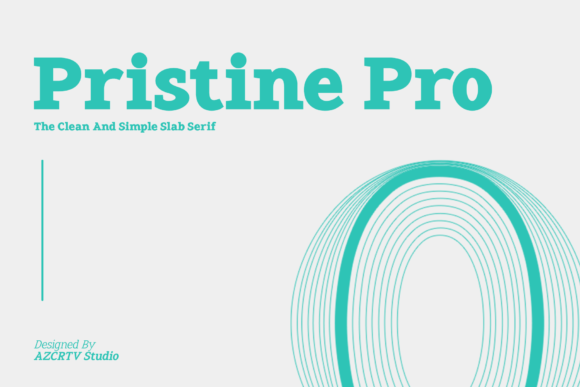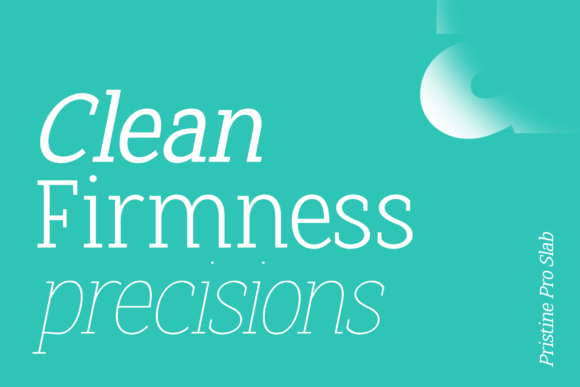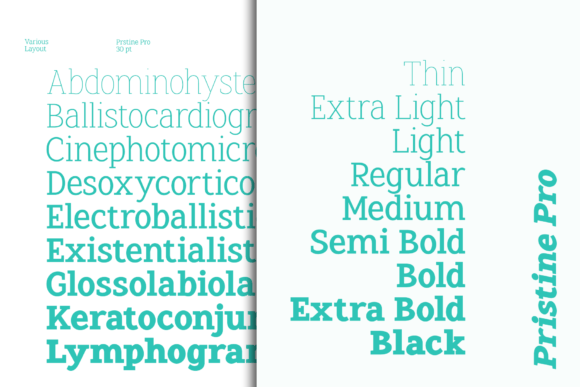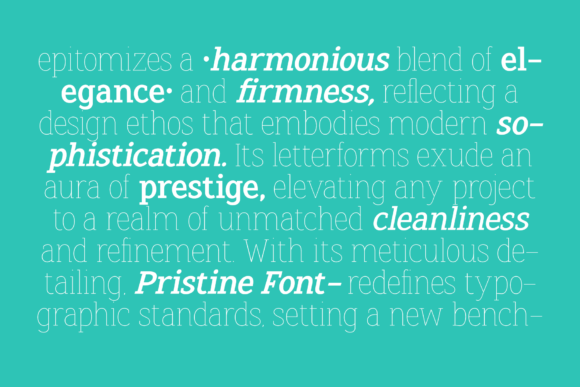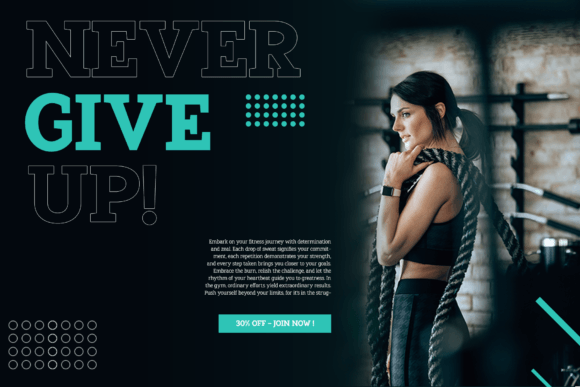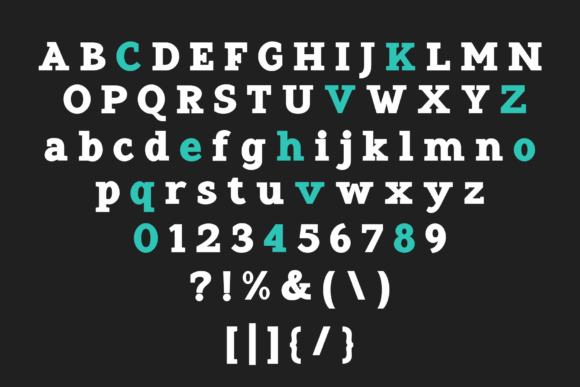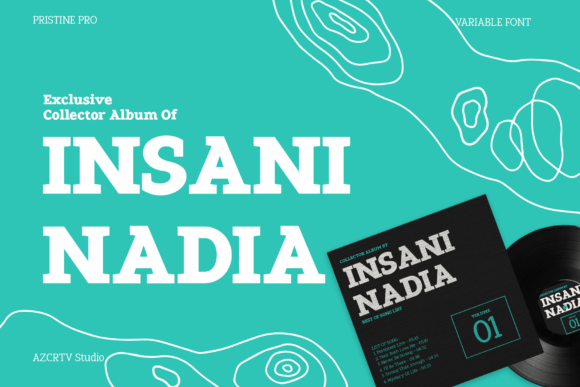
Pristine Pro Font
About Pristine Pro Font
Meet Pristine Pro, the epitome of elegance and precision in typography. This Slab Serif font, meticulously developed with a humanistic touch, promises unparalleled sophistication for your projects. Its 18 versatile font families, ranging from Thin to Black, offer a tailored solution for every design need.
Explore the seamless blend of clean lines and firm structure that defines Pristine Pro. This font isn’t just a typeface; it’s a statement of modernity and style. With support for 89 international languages, including English, French, Spanish, and German, Pristine Pro caters to a global audience, ensuring your designs communicate effectively worldwide.